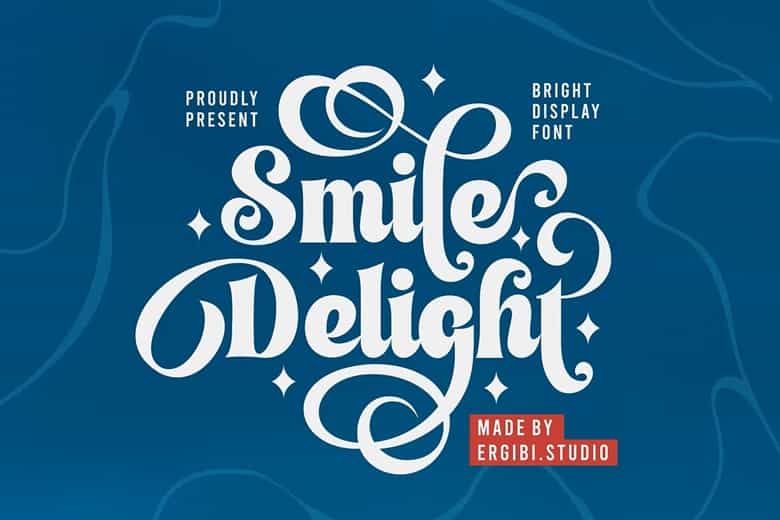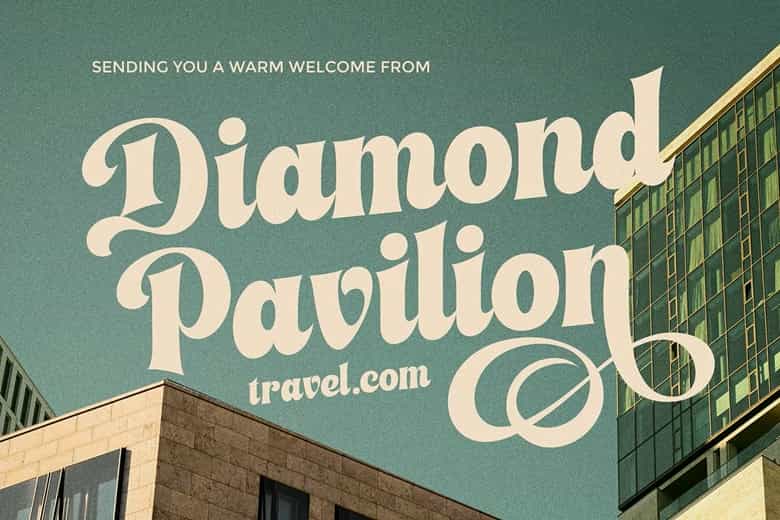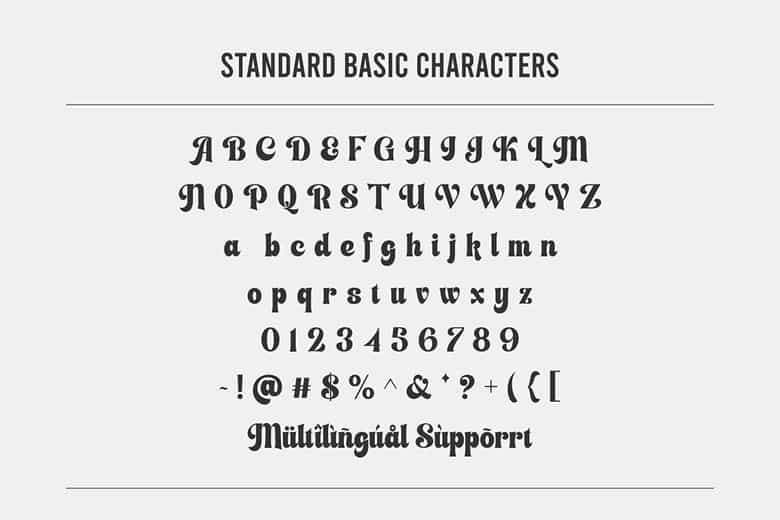
Smile Deligth is confident, happy, creative, bold display font. This typeface features thick strokes and playful curves in order to make a statement. Smile Deligth is perfect for headlines, posters, branding, packaging and that cheerful energy makes every design a hue more sparkly. The subtlety of some of the quirks in its letter forms make it distinctive and interesting to modern layouts but its bold character means it is highly readable, even from distance.